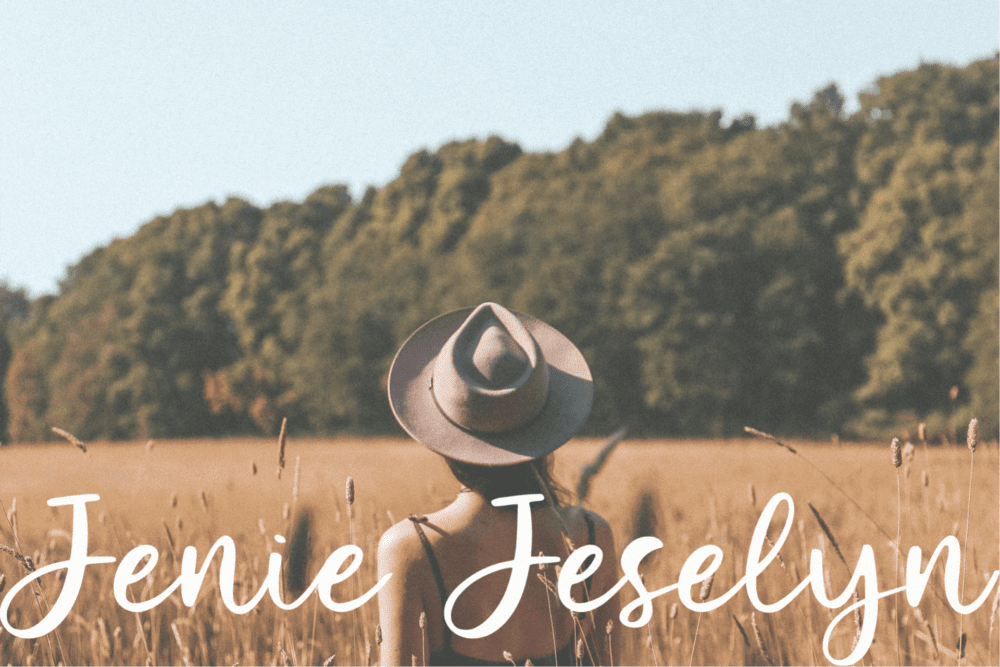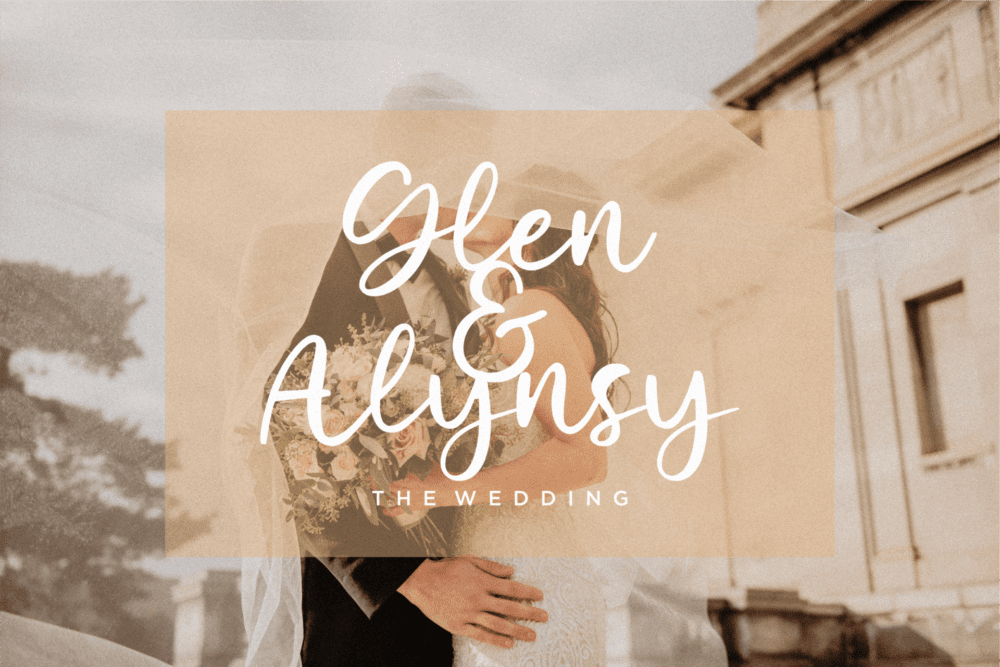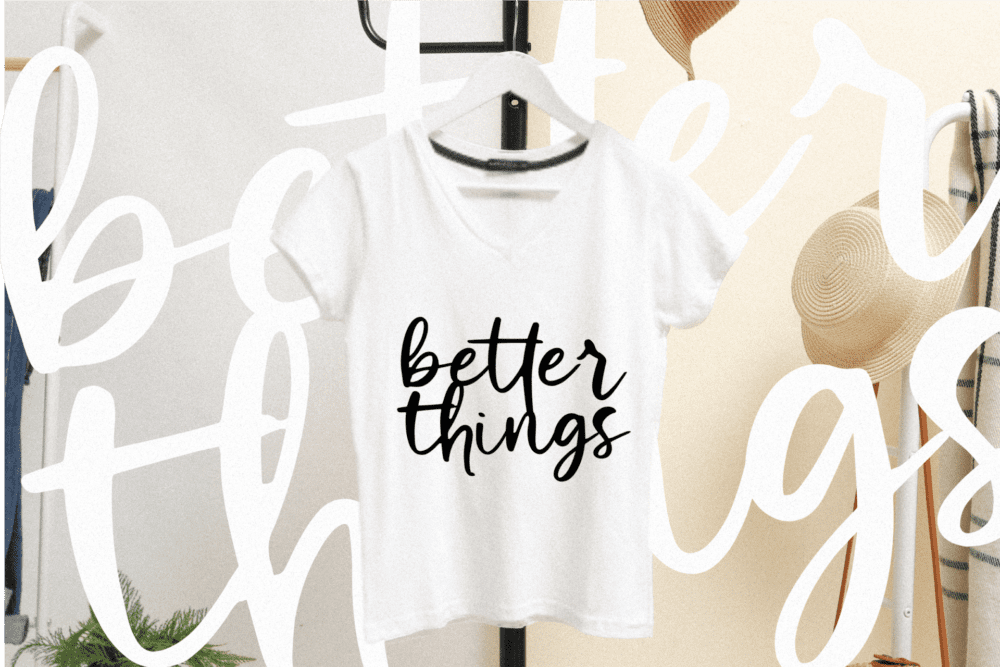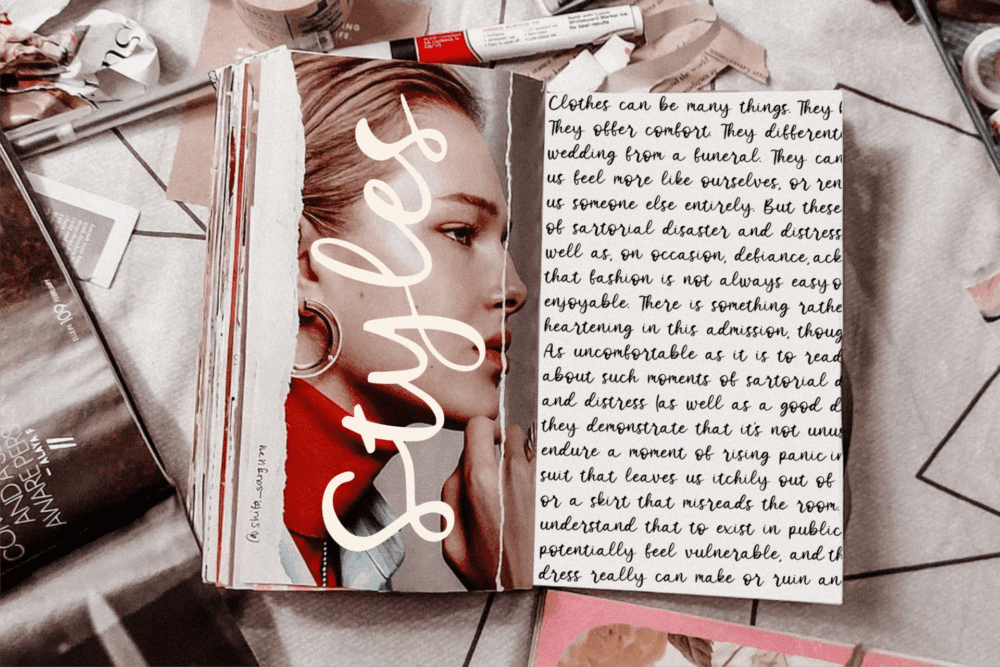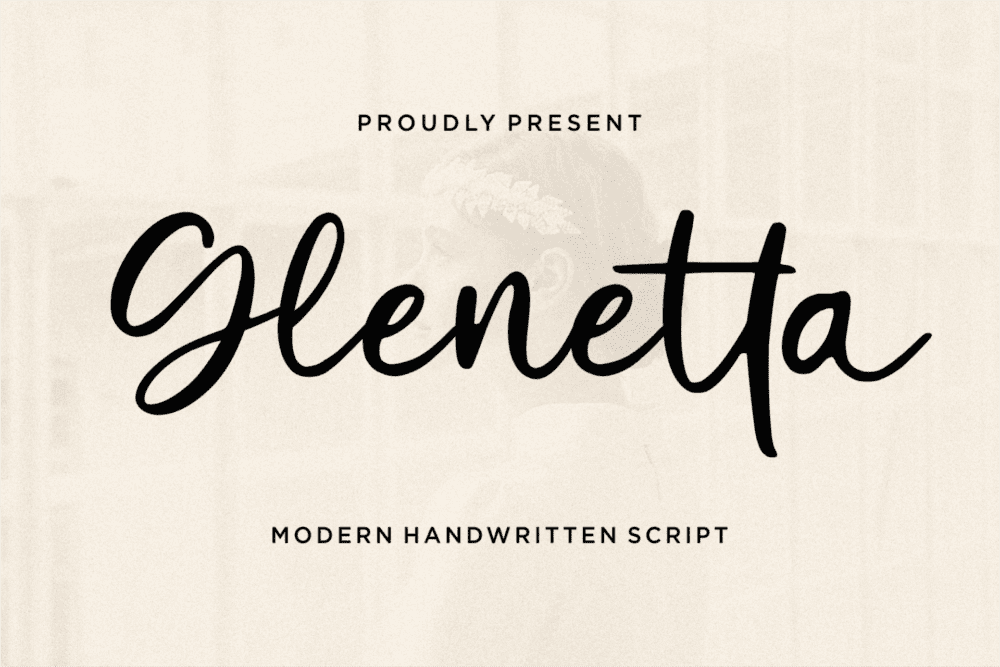
Glenetta Font
Glenetta is an enchanting handwritten font. This versatile script font has a wide spectrum of applications ranging from greeting cards to headlines and is guaranteed to add a romantic feel to your next project.